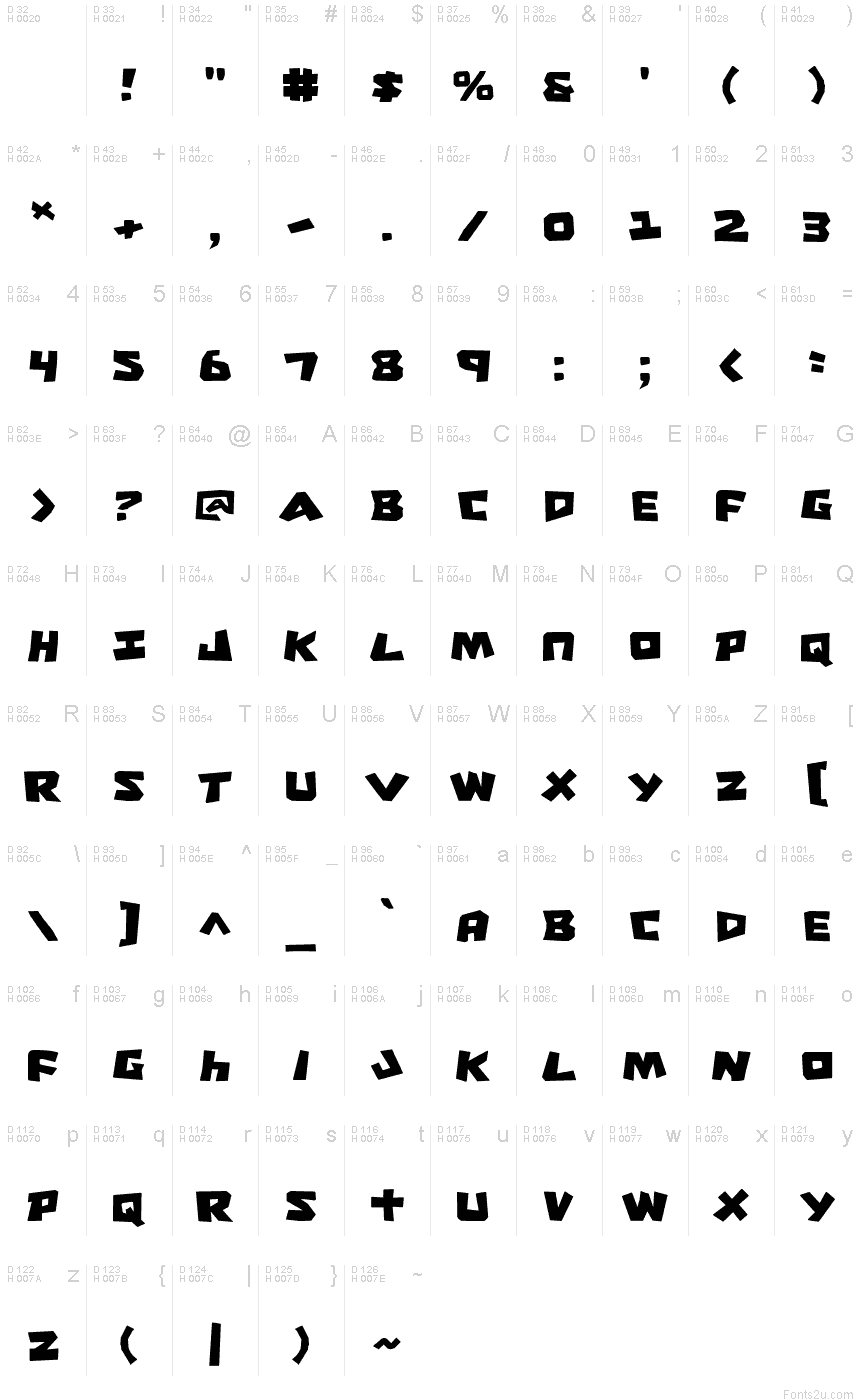
Cro-Magnum
Cro-Magnum font by Dan Zadorozny of Iconian Fonts is a free comic display typeface that looks like it’s been hacked out of stone with a blunt chisel. The letters are chunky, uneven, and slightly tilted, giving everything a bouncy, prehistoric energy that feels more “Saturday morning cartoon caveman” than museum relic. Bold black shapes and tight spacing punch through busy backgrounds, so your titles read loud and clear even when things get chaotic.
Using Cro-Magnum, you can give instant Stone Age swagger to game logos, kids’ book covers, cartoon branding, birthday party invites, YouTube thumbnails, or playful museum exhibits. This free font thrives at large sizes where its carved, blocky edges can really show, so keep it for headlines and pair it with a simple geometric sans for smaller supporting text.